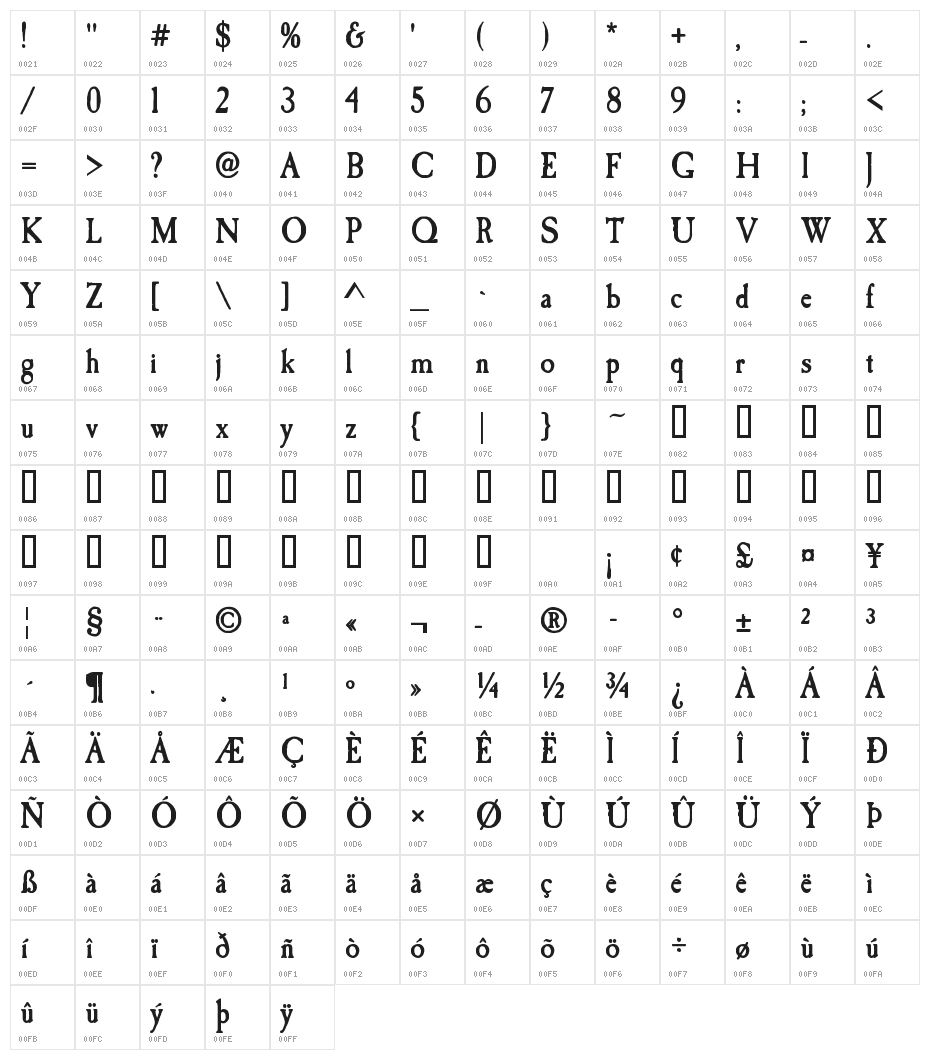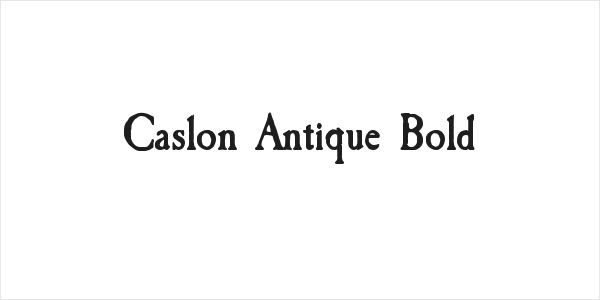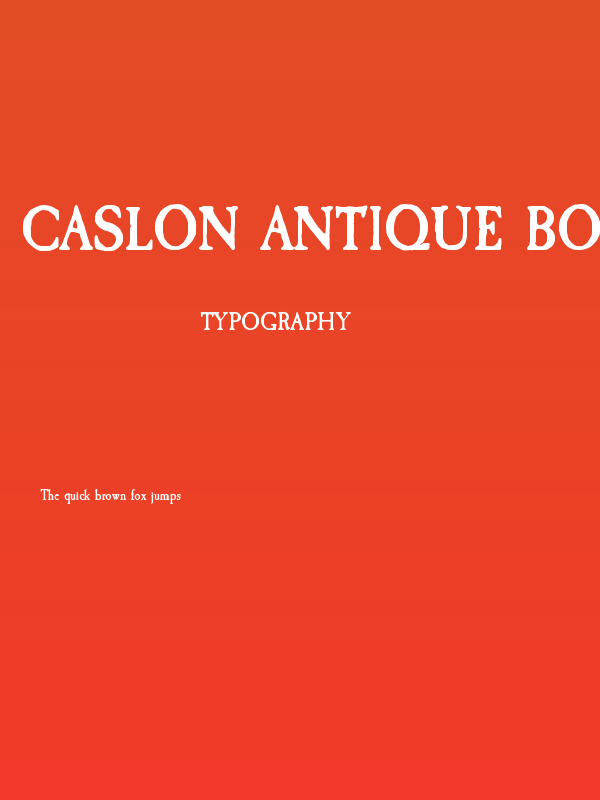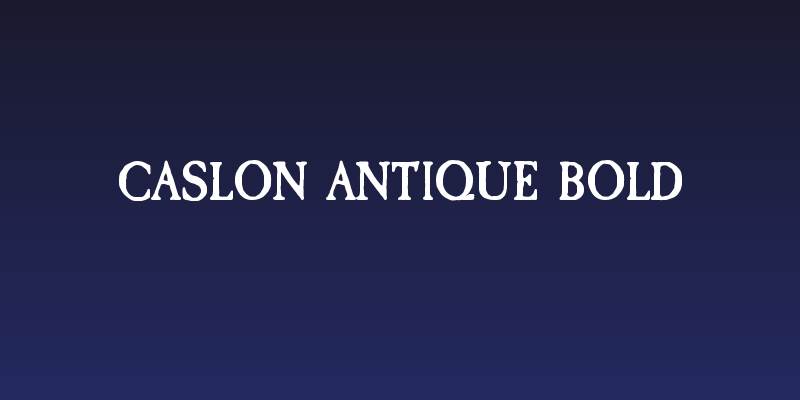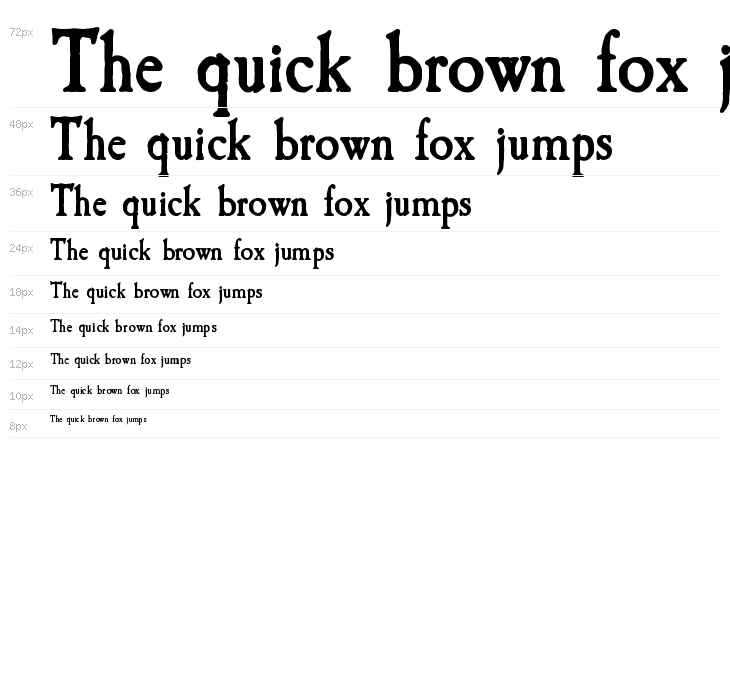
Caslon Antique Bold Font
Caslon Antique Bold Description
This font exudes a classic and historical charm, characterized by its bold and slightly irregular strokes that give it an antique feel. The serifs are pronounced, adding to its vintage appeal, while the overall letterforms are robust and sturdy. The uppercase letters have a commanding presence, while the lowercase letters maintain a consistent style with slightly rounded edges. The numerals are clear and distinct, complementing the alphabet with their boldness. Special characters are well-defined, maintaining the font's overall aesthetic. This font is ideal for projects that require a touch of history and tradition.
| Use Case | Headlines, Logos, Book covers |
| Proposed Projects | Ideal for historical documents, vintage-themed designs, book covers, and branding that requires a classic touch. |